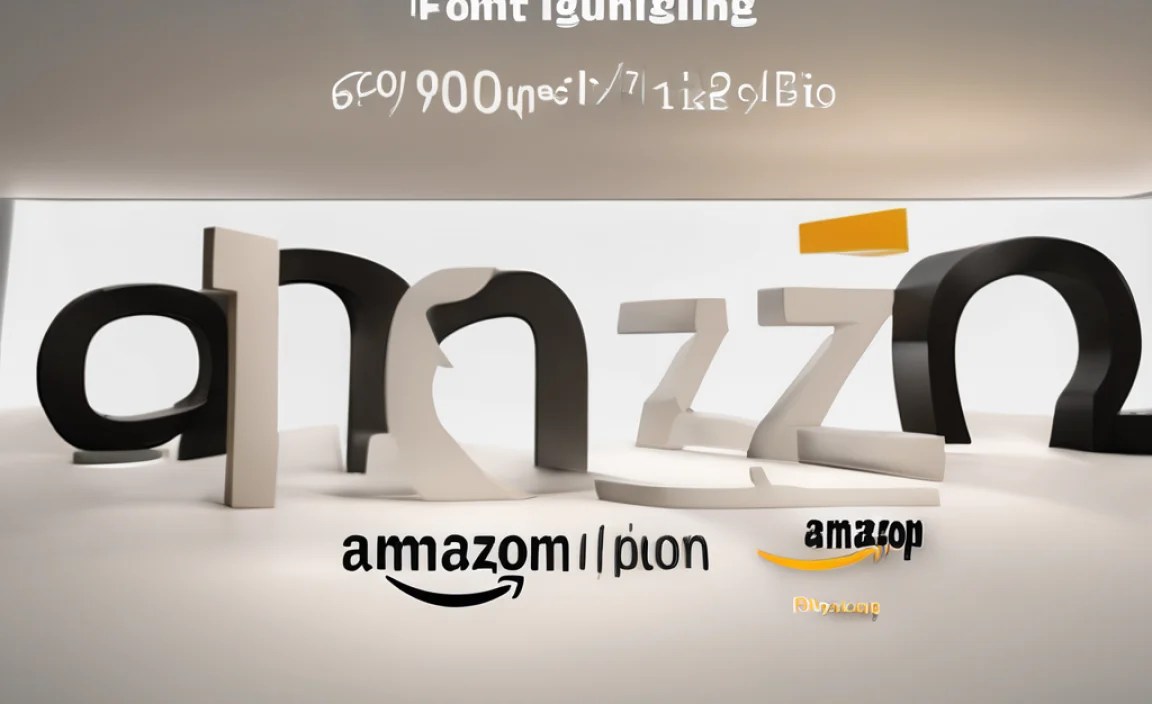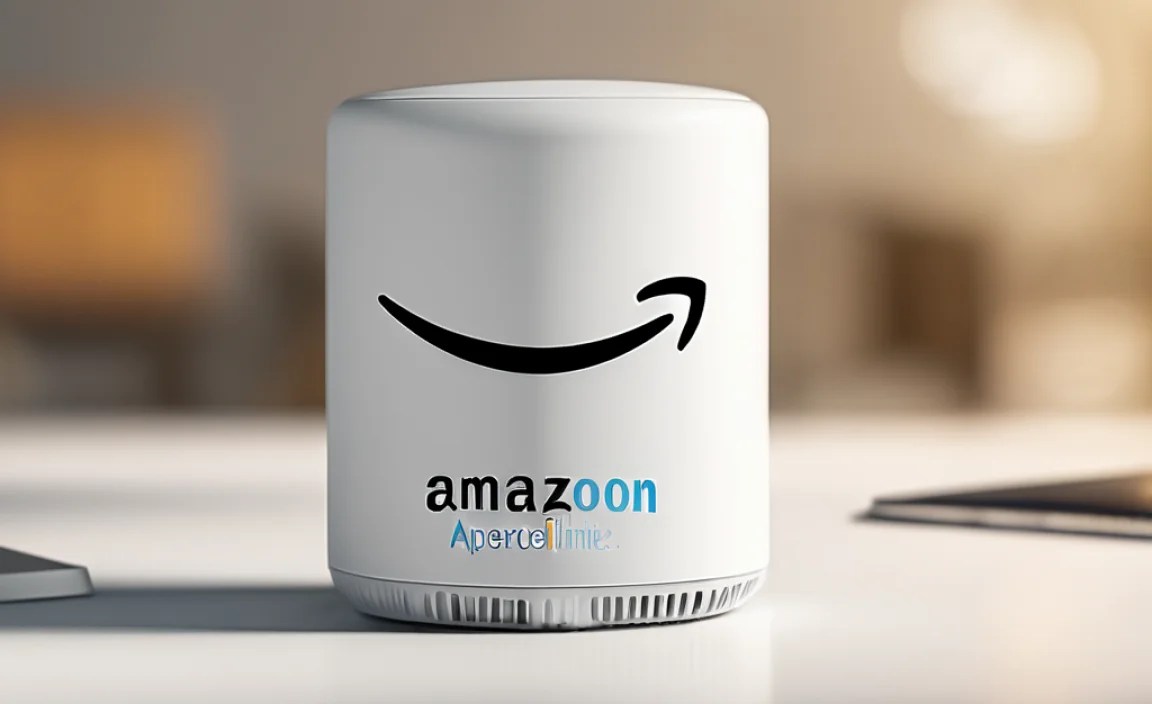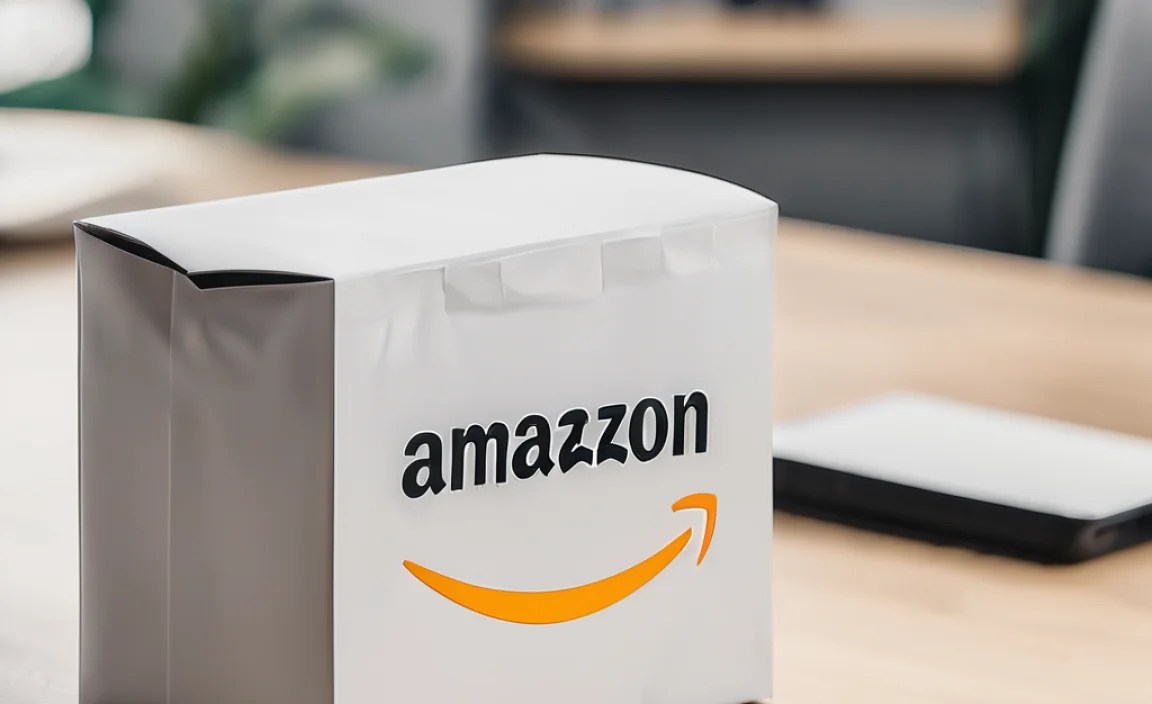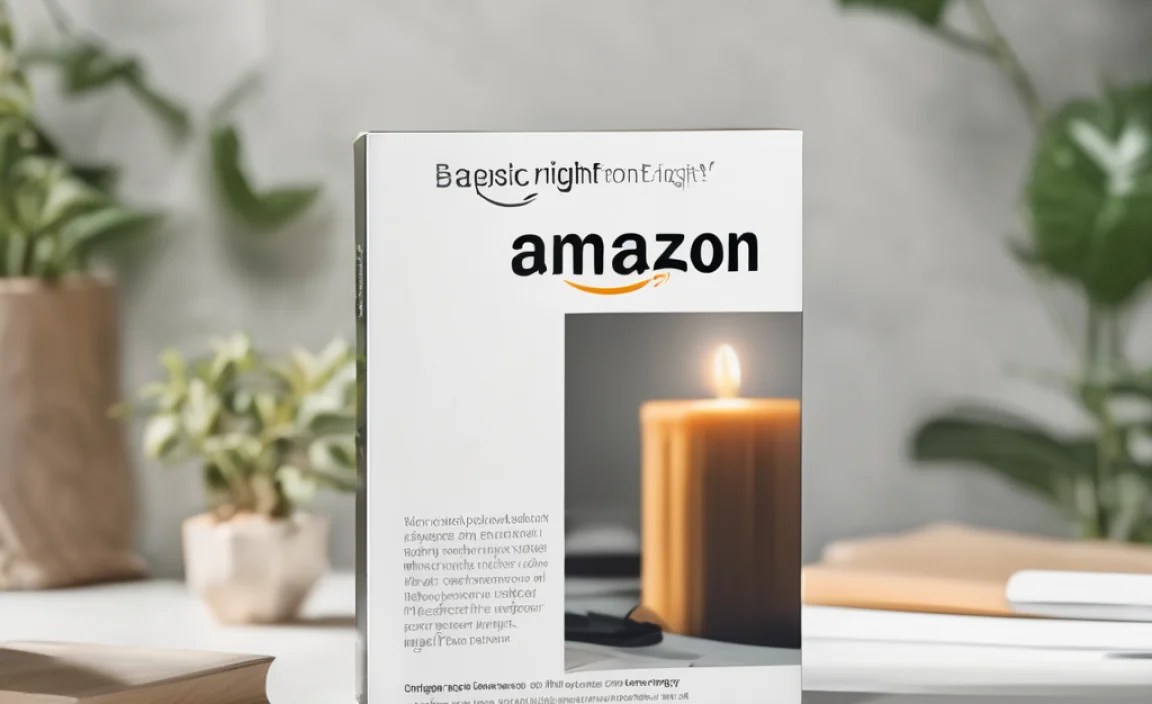
Did you know fonts have a story behind them? One interesting font is the Amazon Font. Have you ever wondered how it looks or where it is used? Fonts are like clothes for words, making them stylish or serious. Let’s dive into the world of Amazon Font and explore its magic!
Key Takeaways
- The Amazon Font is unique and widely recognized.
- Fonts help in setting the tone of text.
- Different fonts are used for different purposes.
- The right font can improve readability.
- Fonts can make information more engaging.
Understanding Amazon Font
Fonts are everywhere, like on books, signs, and screens. One special type is the Amazon Font. This font is used by Amazon, the giant online store. Imagine reading a book with fancy letters or a simple and clear text. Fonts do that magic. They make words look different. The Amazon Font is known because it’s easy to read and simple. It helps people enjoy the content without getting tired.
- Fonts can be fancy or simple.
- The Amazon Font is clear and neat.
- Amazon uses it for its branding.
- It makes reading online easier.
- Fonts add personality to words.
The Amazon Font is more than just letters. It’s about making reading easy and pleasant. Have you ever read something where the letters were too fancy or too small? That’s why choosing the right font is important. The Amazon Font makes sure that everyone can read without struggling.
Why Are Fonts Important?
Fonts make words look good and easy to read. Would you wear winter clothes in summer? Probably not! Similarly, choosing the wrong font can make text hard to understand. Different fonts are used for different purposes. For example, a birthday invitation might use a fun font. A school book uses a simple font. The Amazon Font is important because it’s clear. It’s like wearing the right clothes for the right weather.
How Fonts Affect Our Reading
Imagine reading a story with tiny letters. Would you enjoy it? Probably not! Fonts affect how we feel about reading. A good font makes stories fun. A bad one can be frustrating. The Amazon Font is chosen because it’s easy to read. It helps people focus on the content. It’s like having a comfy chair to sit on while you read.
What Makes Amazon Font Special?
The Amazon Font is unique because it’s simple and modern. It’s created to help people read comfortably. Have you ever seen a sign but couldn’t read it? Amazon’s font solves this problem by being clear. It’s used on Amazon’s website and packaging. This font makes sure you can read and find what you need.
Amazon Font in Branding
Branding is how a company shows its identity. Imagine a company as a person. What clothes would they wear? Fonts are like those clothes for companies. The Amazon Font is part of Amazon’s branding. It’s the visual voice of the company. When you see Amazon’s logo, it uses this font. It tells people that Amazon is modern, simple, and trustworthy.
- Branding includes logos and fonts.
- The Amazon Font is part of Amazon’s identity.
- It gives a consistent look everywhere.
- Customers recognize brands by their fonts.
- Fonts can build trust with readers.
Amazon’s branding uses the Amazon Font to keep things consistent. This consistency helps people trust and recognize the brand. Imagine if Amazon had a different font every day! It would be confusing. Using the same font helps people remember and trust Amazon.
How Branding Uses Fonts
Have you ever seen a logo and instantly knew the company? That’s branding! Brands use specific fonts to stand out. The Amazon Font helps Amazon be easily recognized. It’s like a signature for the company. When you see it, you know it’s Amazon. Fonts in branding also create feelings. A friendly font can make a brand feel welcoming. A bold one can make it feel strong.
Amazon Font for Consistency
Consistency means staying the same. Why is that important? Imagine if your favorite cereal changed its box every week. It would be confusing! Amazon uses the same font everywhere. This consistency helps people know and trust the company. The Amazon Font is like a familiar face. It makes sure you always recognize Amazon.
How Trust Is Built with Fonts
Trust is important for any company. Would you buy from a store you don’t trust? Probably not. Fonts play a role in building trust. The Amazon Font is clear and simple. It helps people trust Amazon. When things are easy to read, it feels like the company cares. Amazon’s choice of font shows they want to make things easy for everyone.
Amazon Font and Online Shopping
Online shopping is like browsing a giant store from home. But how do you know what to buy if you can’t see it well? That’s where the Amazon Font comes in. It’s used on Amazon’s website to make shopping easy. Clear fonts make it easier to read product details. It’s like having a friendly guide while shopping online.
Question: What makes a good font?
Answer: A good font is clear, easy to read, and suits the text’s purpose. It should enhance comprehension and ensure effective communication. The Amazon Font is a good example. It’s used widely for its simplicity and clarity.
Question: How do fonts affect user experience?
Answer: Fonts play an important role in user experience. A clear font, like the Amazon Font, enhances readability. This makes navigation easier and more enjoyable. A good user experience keeps users coming back.